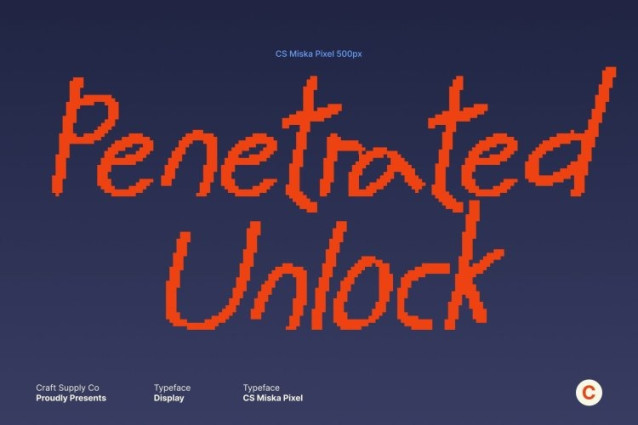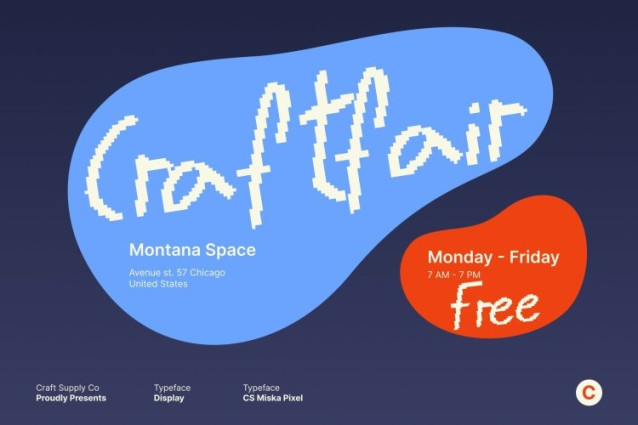
CS Miska Pixel Font
CS Miska Pixel Font This is a gritty handwritten display font built from irregular, scribbled strokes and pixel-inspired texture. Its freely drawn style captures spontaneity and fun, while the digital pixel touch adds a retro edge. Each character feels unique, energetic, and full of personality perfect for designs that embrace imperfection.
Irregular Pixel Shapes for Creative Expression
Uneven forms and rough lines give this font a raw, handcrafted feel, enhanced by pixel construction that adds visual noise and charm. This messy structure makes this font ideal for children’s designs, playful posters, street-style visuals, or experimental branding that breaks traditional typographic rules.
Playful Energy with Digital Attitude
With its unrestrained, expressive style, this font injects movement and attitude into any layout. The combination of scribbly strokes and pixel grit turns ordinary text into bold, engaging visuals great for party invitations, kids’ artwork, and fun editorial designs.
Versatile for Expressive, Casual, and Fun Design
Despite its chaotic nature, this font adapts well to a wide range of creative projects. From casual branding and whimsical packaging to digital content and social media graphics, it delivers a charming, handcrafted look with a playful digital twist that’s impossible to ignore.